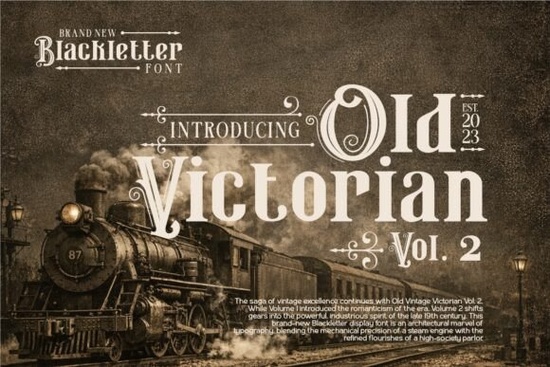
If you've been searching for a typeface that brings a genuine Victorian aesthetic to your work, Old Victorian Vol 2 Font is worth a close look. This blackletter-style font is designed to capture the ornate, handcrafted feel of 19th-century typography. It works especially well for invitations, vintage branding, book covers, and print-on-demand designs that call for old-world character without feeling dated or hard to read.
I've spent time working with Victorian and blackletter fonts for client projects and personal designs, so I want to share an honest breakdown of what this font offers, where it shines, and who it's best suited for.
What Makes Old Victorian Vol 2 Font Different From Other Blackletter Fonts?
Blackletter fonts are a broad category. Some lean heavily into the Gothic, medieval look with sharp angles and heavy strokes. Others aim for something more refined and decorative. Old Victorian Vol. 2 sits firmly in the second camp. Its letterforms feature intricate detailing delicate serifs, curved strokes, and ornamental flourishes that feel pulled straight from a Victorian-era storefront sign or a formal event announcement.
Compared to a bolder option like the Black Jaguar font, which tends to feel more aggressive and modern in its blackletter styling, Old Victorian Vol. 2 leans into elegance and readability. It keeps that historic blackletter structure but softens the edges with decorative touches.
What Can You Actually Use This Font For?
This is a practical question, and it matters more than how a font looks in a preview. Here are some real-world uses where Old Victorian Vol. 2 works well:
- Wedding and event invitations The ornate style fits formal, classic themes perfectly.
- Logo design Especially for brands in craft beverages, barbershops, leather goods, or heritage-style products.
- Book covers and chapter headings Think mystery, historical fiction, or gothic genres.
- Signage and wall art Vintage-style prints and chalkboard designs benefit from this kind of typeface.
- Print-on-demand products Mugs, t-shirts, tote bags, and posters with a vintage or retro theme.
- Social media graphics Short headers or quotes where a decorative font adds visual interest without overwhelming the layout.
Is It Readable Enough for Body Text?
No and that's important to know upfront. Like most decorative blackletter and Victorian fonts, Old Victorian Vol. 2 is designed for display use only. That means headlines, titles, short phrases, and logos. Don't try to set paragraphs with it. Pair it with a clean serif or sans-serif font for any supporting text. A simple pairing like a classic serif for body copy will let the Victorian font stand out without creating visual clutter.
How Does It Compare to Other Fonts in the Same Style?
If you're browsing blackletter and Victorian fonts, you'll likely come across several options on Creative Fabrica. The Amstrong font takes a different approach it has more of a structured, angular blackletter feel that works well for edgier or more masculine designs. Old Victorian Vol. 2, by contrast, is softer, more decorative, and better suited for projects that need a touch of refinement and historic charm.
Who Is This Font Best For?
This font is a solid pick for:
- Graphic designers working on vintage-themed branding or editorial layouts
- Crafters and hobbyists making personalized gifts, cards, or home décor
- Print-on-demand sellers looking for distinctive typography for their product lines
- Small business owners in industries like craft brewing, boutique retail, or event planning
It's also a good addition to any font library if you frequently work on projects that need a historic or decorative typeface. Having a few reliable Victorian-style fonts on hand saves time when clients request that aesthetic.
Quick Checklist Before You Buy
- Know your use case This is a display font, not for body text or long-form content.
- Check the license Creative Fabrica offers various licensing options, so make sure the one you choose covers your intended use (commercial projects, POD, etc.).
- Plan your font pairings Pick a clean secondary font before you start designing so your layouts look balanced.